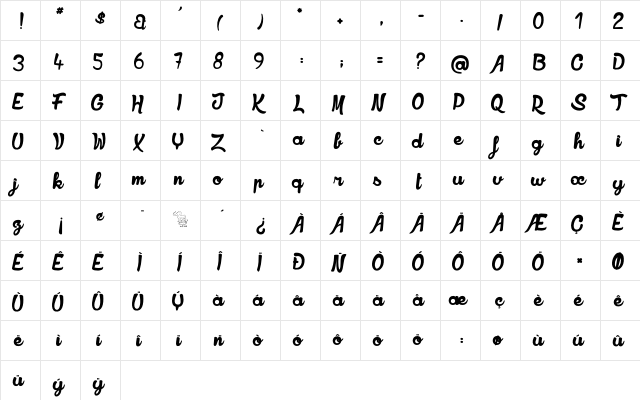
Rookies Showtimes Regular
Design Context for Rookies Showtimes Typeface
Rookies Showtimes takes a measured approach to typography — its balanced proportions and neutral character make it a reliable workhorse for both digital and print work.
Pro Tip: Pair Rookies Showtimes with a font of contrasting weight or personality to build a more expressive typographic hierarchy.